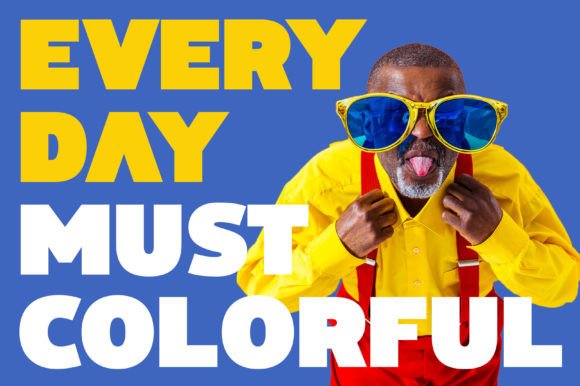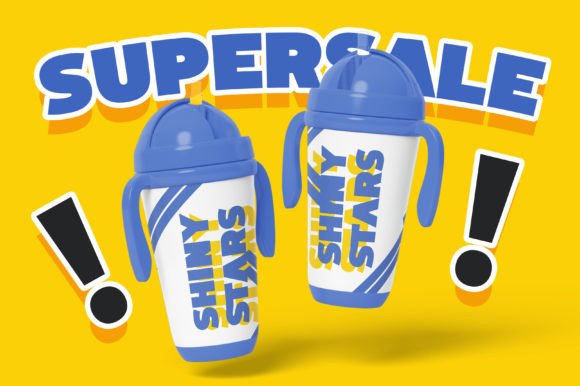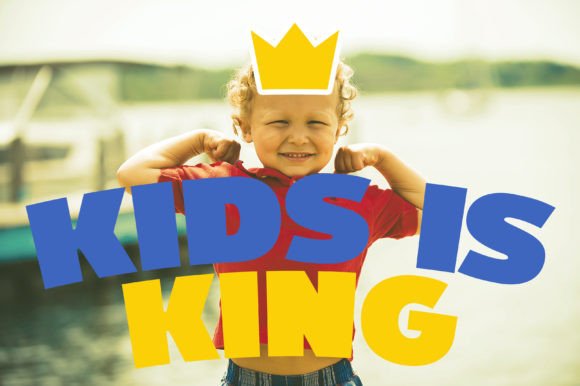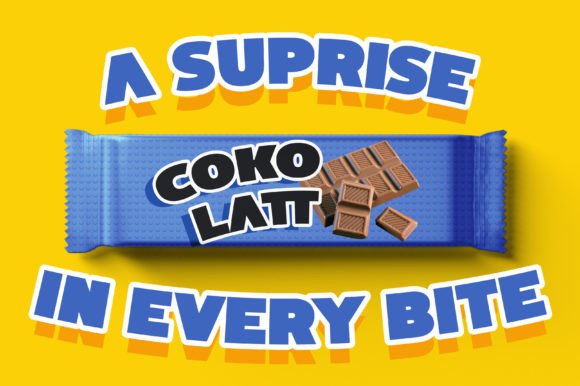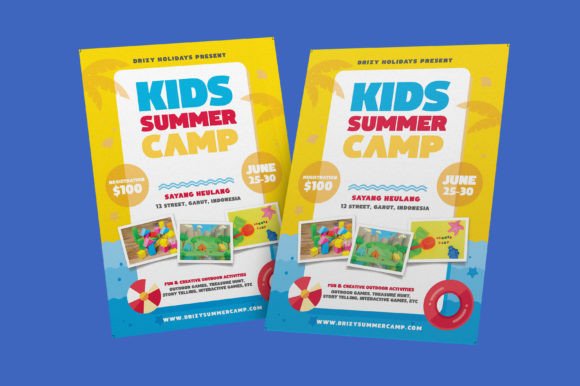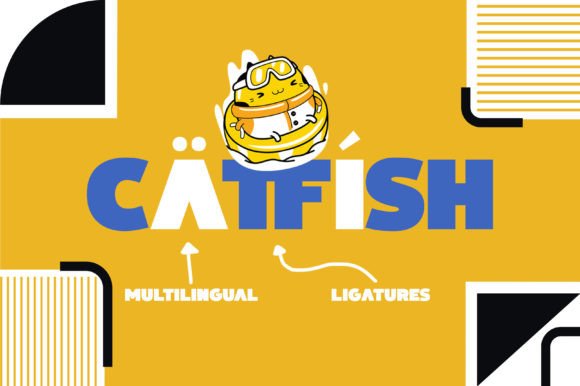
Unlock the Power of Creative Expression with Cazon Font
Have you ever stared at a blank canvas, feeling the urge to bring a bold idea to life? That’s exactly where I was when I first laid eyes on the Cazon Font. Its sleek, geometric design sparked a creative fire within me, and I knew I had to share it with the world. As a designer, there’s nothing quite like the thrill of discovering a new font that can elevate your work to the next level.
Cazon Font is a versatile sans serif typeface that’s perfect for creating eye-catching headlines, logos, and more. With its multilingual accents, it’s a valuable asset for designers working on projects that require language-specific typography. Whether you’re working on a graphic design project, web design, print materials, or even motion graphics, Cazon Font is a great choice.
As a designer, you know how crucial it is to have a reliable font that can help you stand out from the crowd. That’s exactly what Cazon Font offers – a unique blend of style and functionality that’s sure to make your work shine.
Cazon Font Key Features
- Font Family: Cazon is a sans-serif font family.
- Character Count: The Cazon font family includes a large character set, covering multiple languages and scripts.
- Unique Characteristics: Cazon features clean lines, geometric shapes, and a modern aesthetic, making it suitable for various design applications, including digital interfaces and printed materials.
Cazon Font Review
I recently had the chance to work with the Cazon font, and I must say it’s a decent addition to any designer’s toolkit. Here are some things that worked well for me:
- ✨ Versatility: Cazon is a highly versatile font, suitable for a wide range of projects, from modern logos to traditional headings.
- ✨ Legibility: The font is well-designed and easy to read, making it perfect for body text and longer passages.
- ✨ Unique style: Cazon has a distinct, modern aesthetic that sets it apart from other fonts in its class.
- ⚠️ Limited character set: While Cazon has a wide range of characters, it’s still not as comprehensive as some other fonts I’ve worked with.
- ⚠️ Limited language support: Unfortunately, Cazon doesn’t support as many languages as I would have liked.
- ⚠️ Some formatting issues: I encountered a few formatting issues when using Cazon in certain contexts, which required some tweaking to resolve.
Overall, I’d say Cazon is a solid choice for designers looking for a modern, versatile font. While it’s not perfect, it’s a great addition to any toolkit, and I’d definitely consider using it again in the future.
Getting the Most Out of Cazon Font
To get the most out of Cazon Font, experiment with different font sizes, colors, and styles to create unique and visually appealing designs.
Use Cazon Font in combination with other fonts to add depth and variety to your designs.
Play with the font’s bold and italic styles to create emphasis and contrast.
Cazon Font is suitable for:
1. Headlines and titles.
2. Branding and logo design.
3. Digital marketing materials.
4. Editorial and publishing content.
Alternatives to Cazon Font
The Great Vibes Font is a modern, elegant script font that is perfect for designs that require a touch of sophistication. It is ideal for use in wedding invitations, branding, and other high-end designs. Great Vibes Font has a more refined and polished look compared to Cazon Font, making it suitable for formal and professional projects.
The Dancing Script Font is a beautiful, cursive script font that is great for designs that need a playful and whimsical touch. It is ideal for use in invitations, posters, and other creative projects. Dancing Script Font has a more dynamic and expressive look compared to Cazon Font, making it suitable for projects that require a sense of movement and energy.